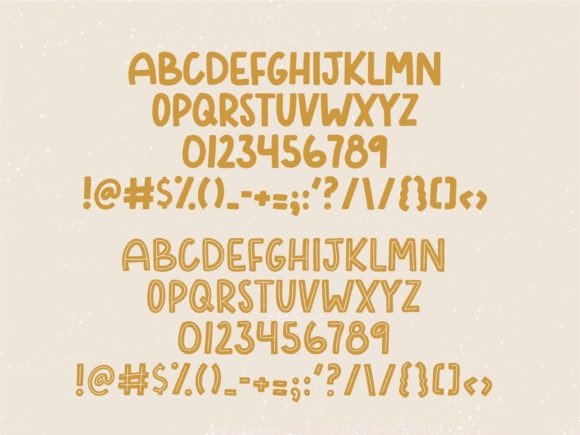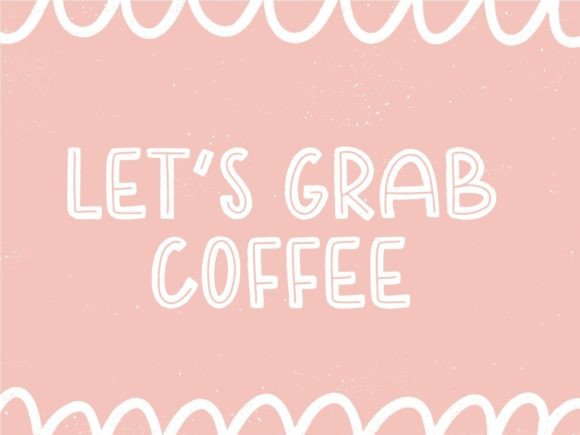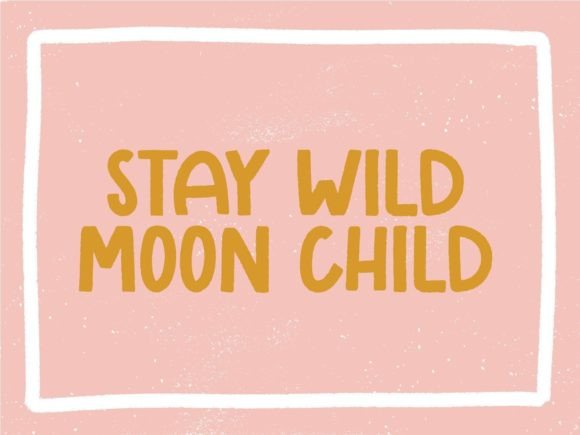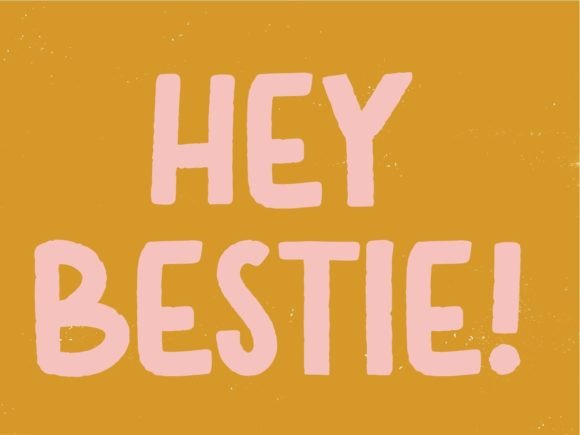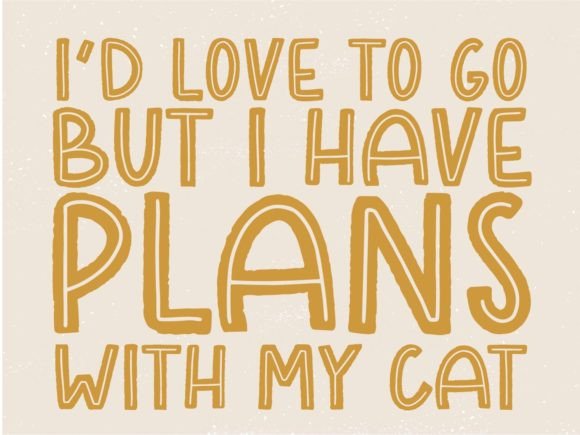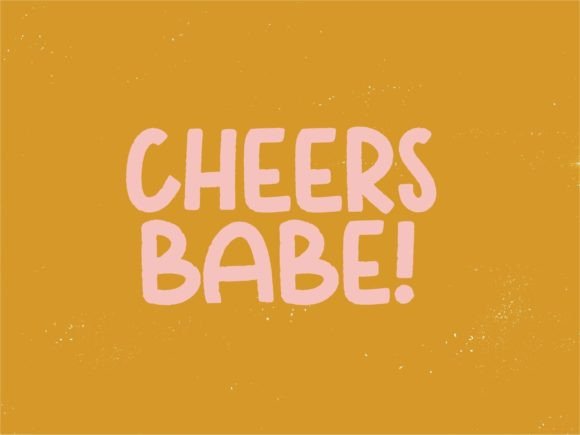
Bring Your Creations to Life with Iced Coffee Font
Have you ever been working on a project and suddenly, a burst of inspiration hits you? You know exactly what you want to create, and you can’t wait to bring it to life. For designers, those moments are what make all the hard work worth it. But, sometimes, it’s the little details that can make all the difference. That’s where the Iced Coffee Font comes in – a playful handwritten font that adds a personal touch to your next project.
Perfect for adding a dash of whimsy to your designs, the Iced Coffee Font is a valuable tool for any designer looking to elevate their work. Whether you’re working on a branding project, a social media campaign, or a simple greeting card, this font is sure to make your creations stand out. With its unique, handwritten feel, the Iced Coffee Font is the perfect way to add a touch of personality to your designs and make them truly unforgettable.
Iced Coffee Font Key Features
- Unique Characteristics: Features a unique, modern design inspired by the refreshing taste of iced coffee, making it perfect for summer-themed projects and branding.
- Font Style: Available in regular and bold weights, providing options for varying text emphasis and visual hierarchy.
Iced Coffee Font Review
I recently had the chance to try out the Iced Coffee Font, and I have to say it’s a pretty interesting choice for a font. ✨ One of the things that works well is the unique, hand-drawn feel of the font. It’s perfect for adding a touch of whimsy and personality to your designs. The font is also very easy to read, even at smaller sizes.
Another thing that I like about the Iced Coffee Font is the number of styles available. ✨ There are several different weights and styles to choose from, which gives you a lot of flexibility when it comes to using the font in your designs. This makes it easy to create a cohesive look and feel across different elements of your project.
- ⚠️ The font may not be the best choice for formal or professional designs. The hand-drawn feel can come across as unpolished or amateurish in certain contexts.
- ⚠️ The font may not be as legible at very small sizes, especially in low-contrast colors.
Overall, I think the Iced Coffee Font is a fun and creative choice for designers who want to add a little extra personality to their projects. While it may not be the best choice for every project, it’s definitely worth considering for the right type of design.
The Iced Coffee font is a great choice for casual and relaxed designs, such as:
- Summer-themed promotions
- Coffee shop branding
- Social media graphics
Remember to experiment with different font sizes, colors, and combinations to get the most out of the Iced Coffee font.